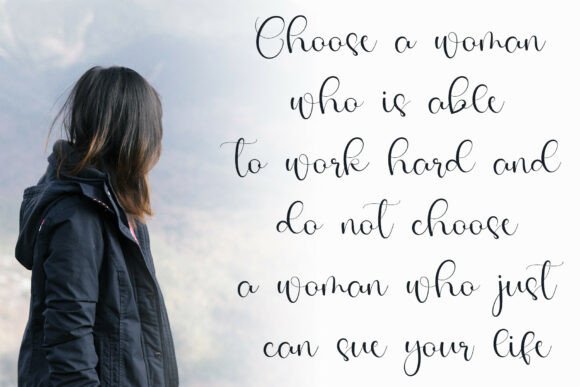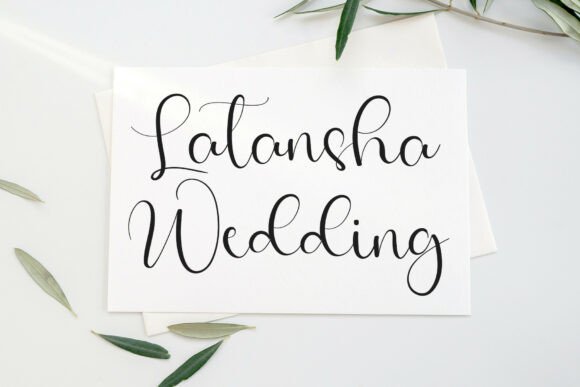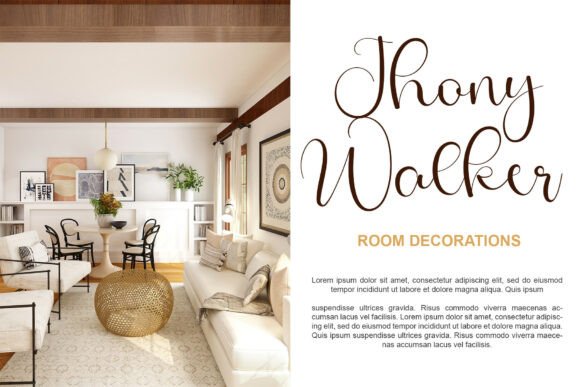
Introduction to Brilliant Farmhouse Font
Brilliant Farmhouse is a sophisticated script handwriting font that offers a graceful and professional hand-penned aesthetic.
The typeface features vertically elongated letterforms with a consistent monolinear weight and smooth character joins that feel both personal and high-end Its design is characterized by tall ascenders and a rhythmic visual flow that mimics the comfortable elegance of rustic, artisanal handwriting.